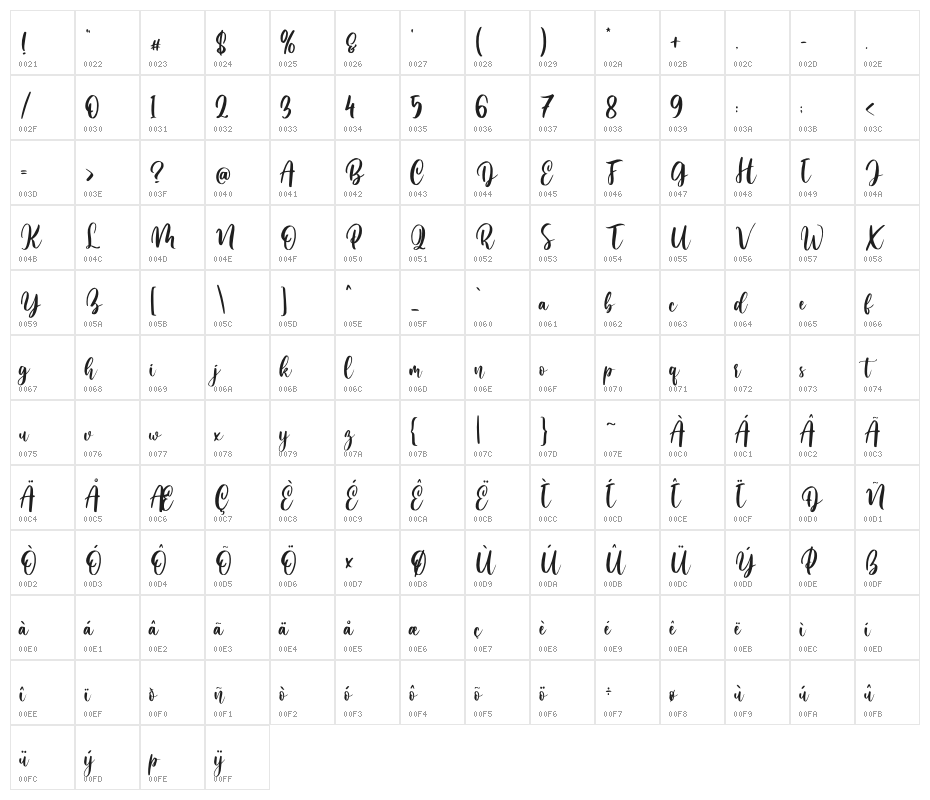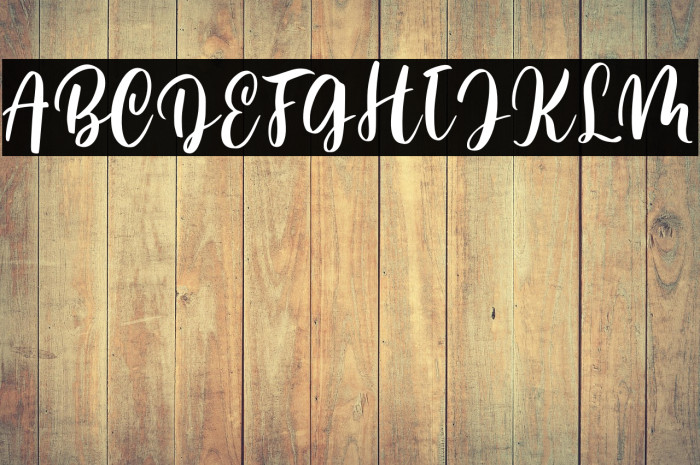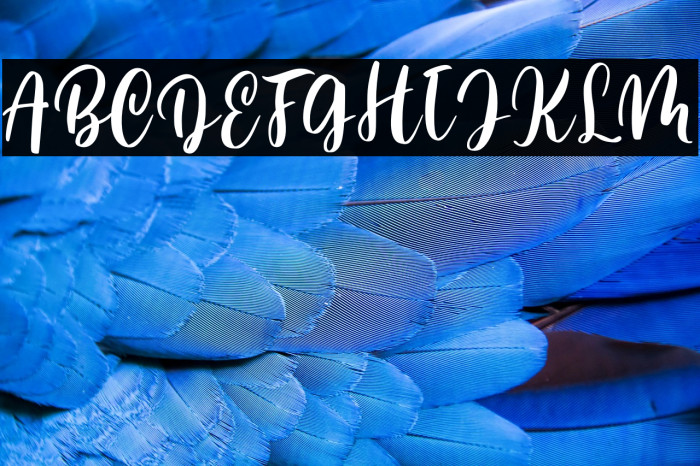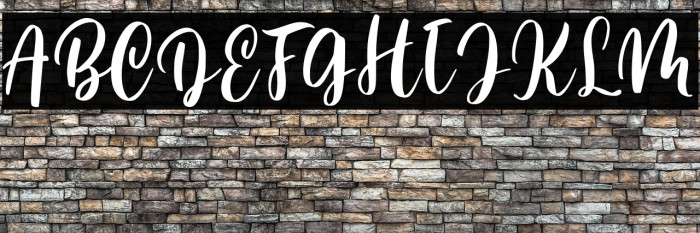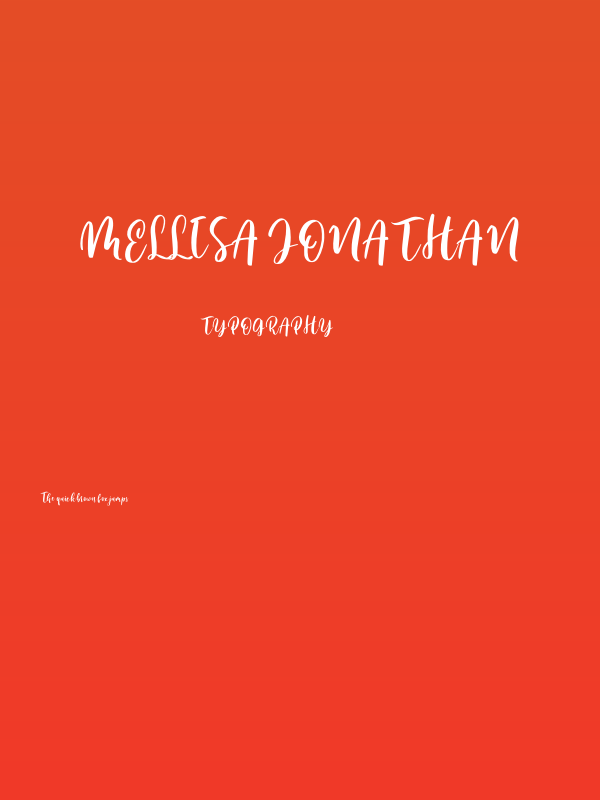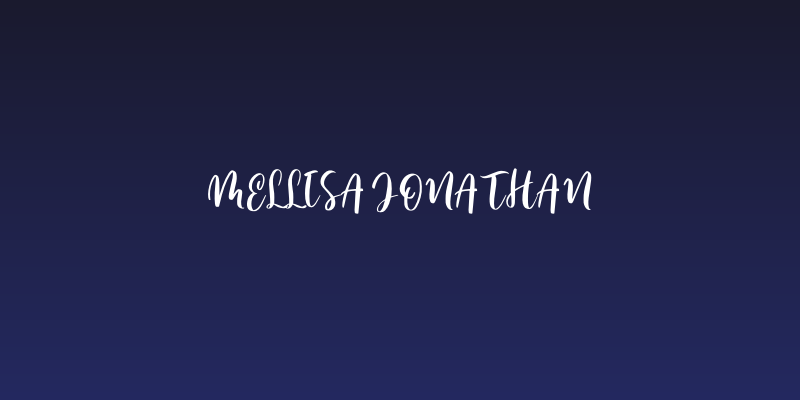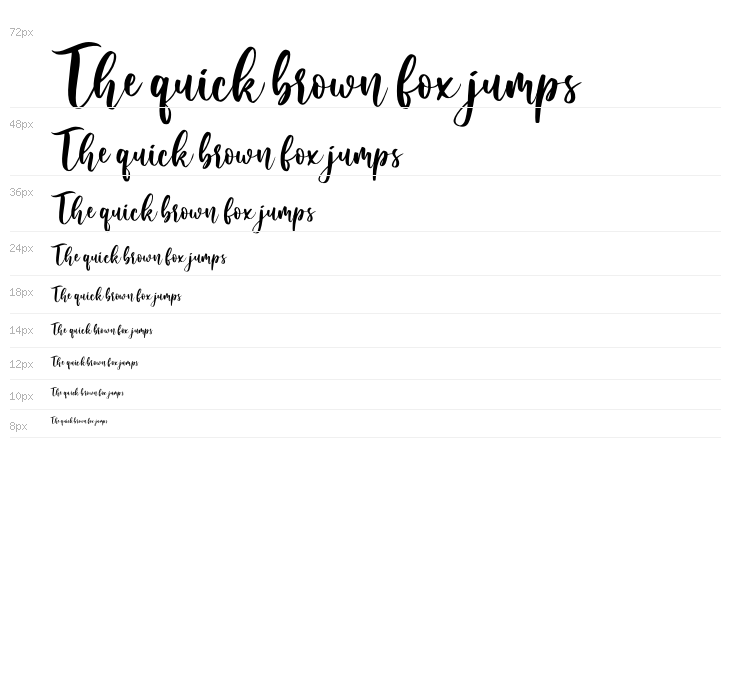
Mellisa Jonathan Font
Mellisa Jonathan Description
This font exudes a lively and expressive character with its bold, flowing script style. The uppercase letters are elegantly crafted with sweeping curves and a sense of motion, while the lowercase letters maintain a consistent fluidity that complements the overall design. The numerals are distinct and maintain the same energetic style, making them stand out. Special characters are creatively integrated, adding to the font's versatility. This font is perfect for projects that require a personal touch, such as invitations, greeting cards, or branding materials. Its dynamic appearance makes it suitable for both digital and print media, offering a unique blend of readability and artistic flair.
| Proposed Projects | Ideal for invitations, greeting cards, branding, and artistic projects. |